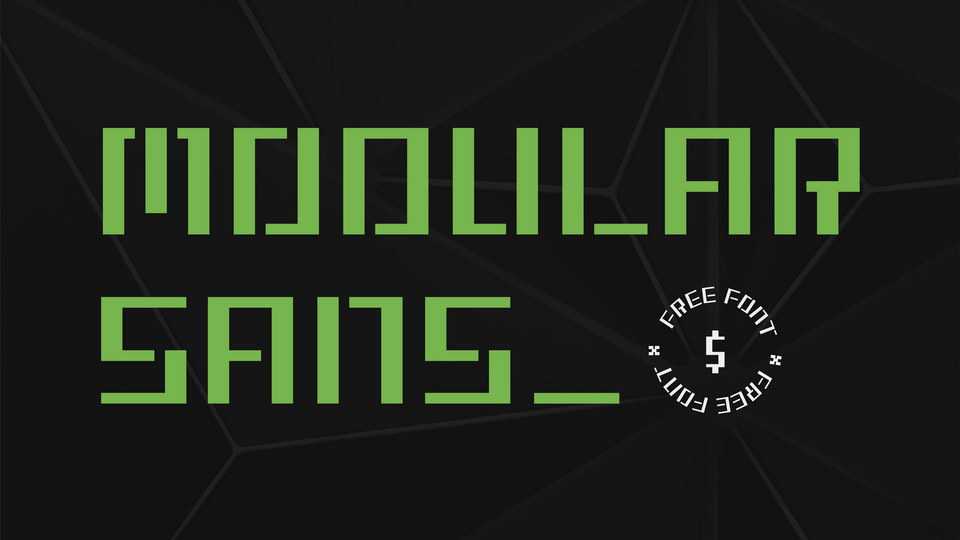
Download Modular Sans font, a grid-based square sans serif display typeface made with solely right angles. Modular Sans is ideal for sci-fi, tech, or futuristic projects.
Designer: Julia Schneider